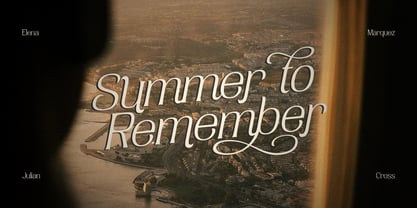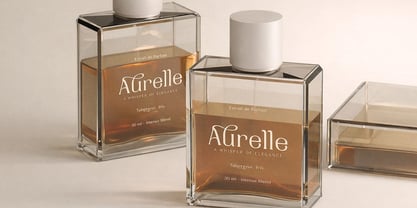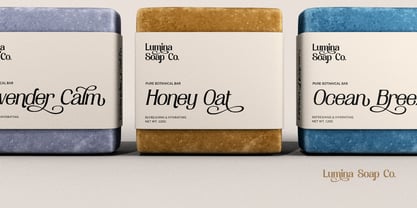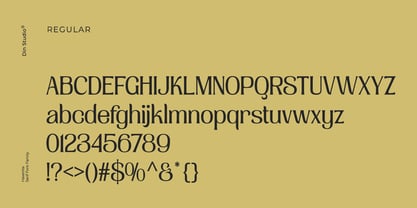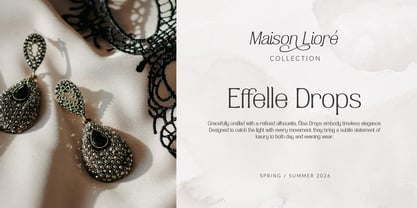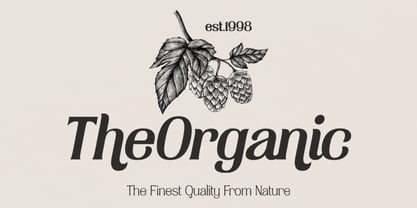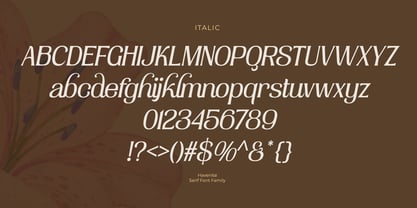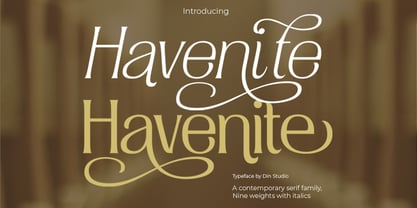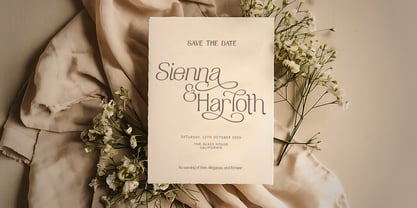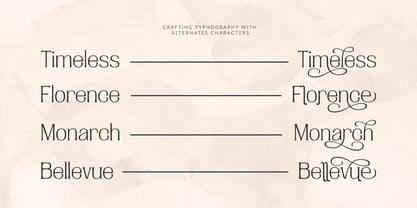
Havenite
The Havenite Font Family was designed by Donis Miftahudin and published by Din Studio. Havenite contains 18 styles and family package options. More about this family
Havenite is a contemporary serif font family designed to bring sophistication, versatility, and modern elegance to professional typography. Crafted with carefully balanced proportions, refined serif details, and clean letterforms, Havenite delivers a timeless aesthetic that feels both stylish and highly functional. What makes Havenite especially powerful is its complete family structure, featuring 9 different weights along with beautifully designed italic versions. In addition, enjoy the features here.
Features:
• Ligatures
• Stylistic Sets
• Multilingual Supports
• PUA Encoded
• Numerals and Punctuations
Havenite fits in logos, quotes, name cards, branding, posters, and many more designs. Find out more ways to use this font by taking a look at the font preview.
Din Studio is a type design studio founded by Donis Miftahudin in 2017. The studio focuses on creating unique and visually appealing script and display fonts that stand out in the industry. Donis Miftahudin is a well-known type designer in the industry and has created several popular fonts under the Din Studio brand.The fonts designed by Din Studio are characterized by their distinct style and aesthetic appeal. The studio's designs often incorporate unique elements, such as intricate ligatures and swashes, to create fonts that are not only visually stunning but also highly functional. The studio's fonts are often used in a variety of applications, including branding, advertising, and editorial design.Din Studio's fonts are highly regarded in the design community and have received recognition from industry publications and organizations. The studio has been featured in several design blogs and magazines, and its fonts have won awards at prestigious design competitions.One of the hallmarks of Din Studio's work is its commitment to innovation and experimentation. The studio is constantly exploring new techniques and approaches to type design, pushing the boundaries of what is possible in the field. This dedication to innovation has helped Din Studio establish itself as one of the most exciting and influential type design studios in the industry.Overall, Din Studio is a dynamic and innovative type design studio that is pushing the boundaries of what is possible in the field. With its focus on unique and visually appealing script and display fonts, the studio is poised to continue making a significant impact in the design community for years to come.